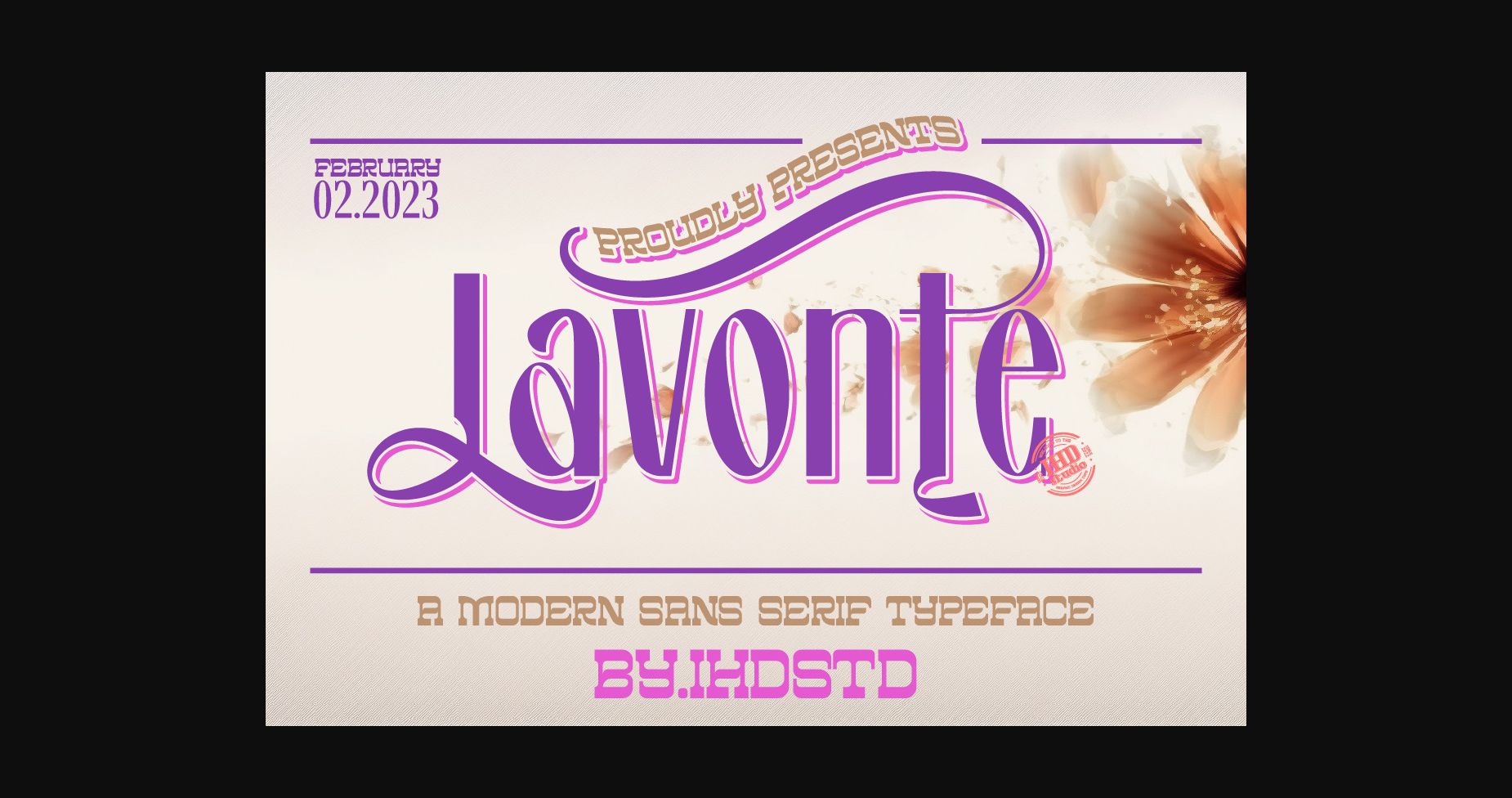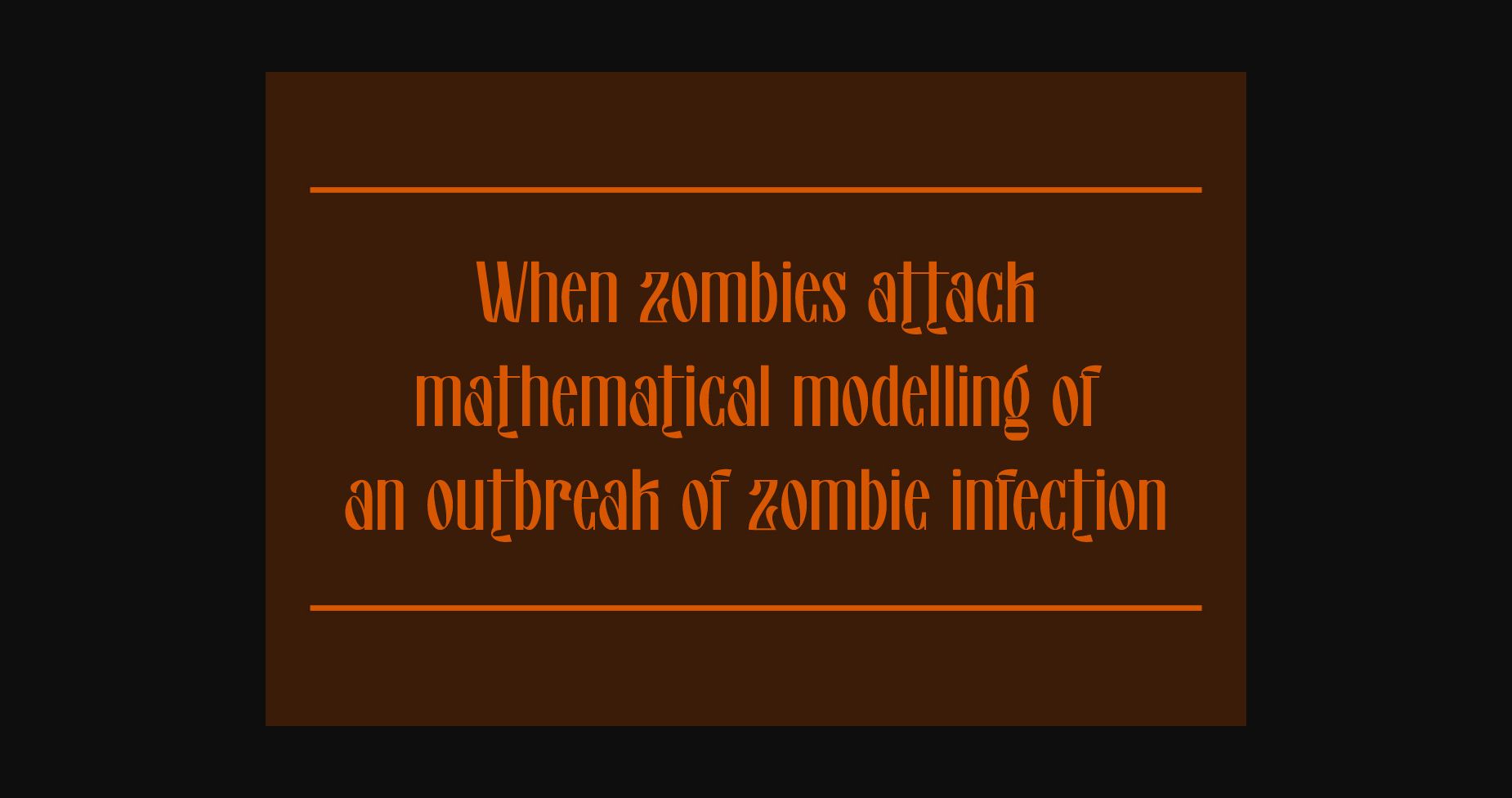
About Lavonte Font
This sans-serif font is the epitome of exclusivity and distinction, featuring bold lines and carefully crafted details that make it stand out from the crowd. Its sleek and modern appearance is perfect for logos, headlines, and other design projects that demand attention. A must-have for designers who want to make a bold statement with their typography.